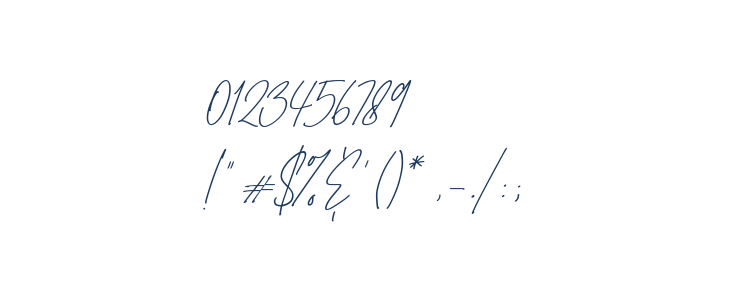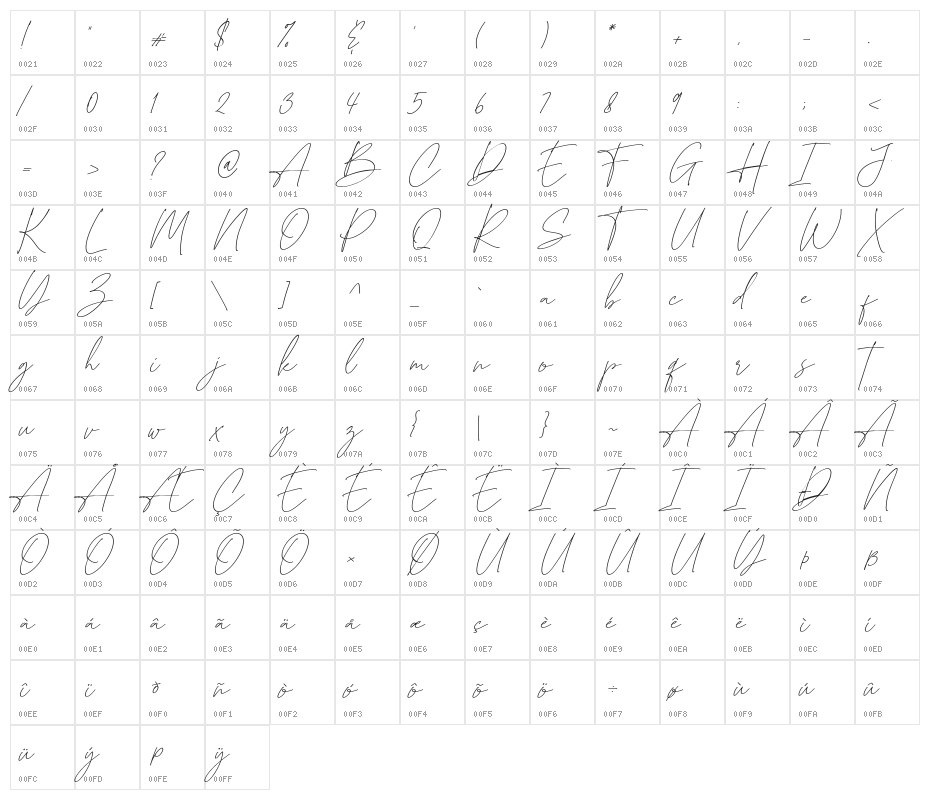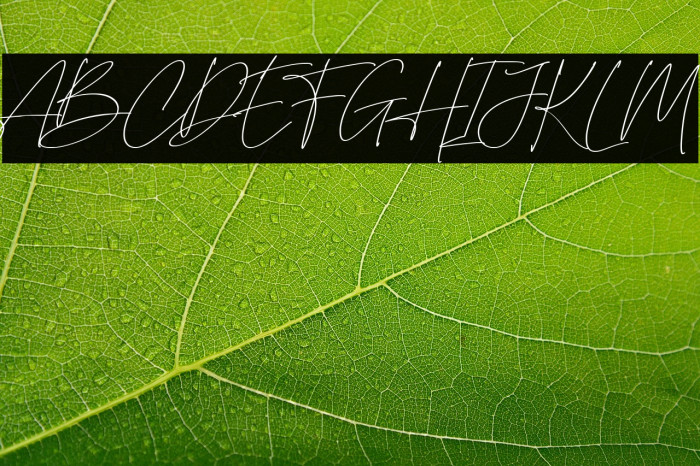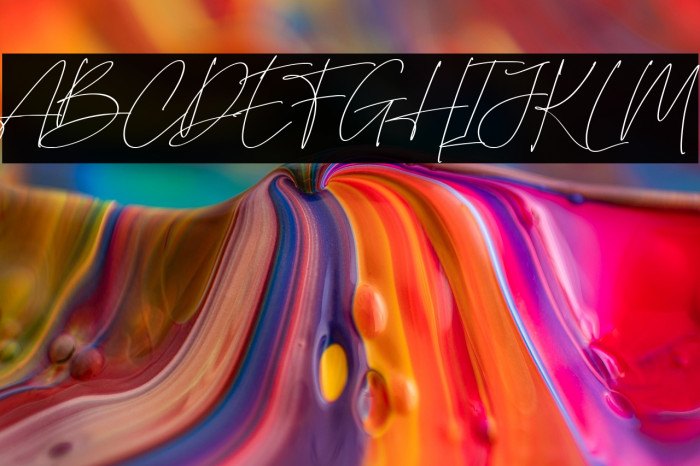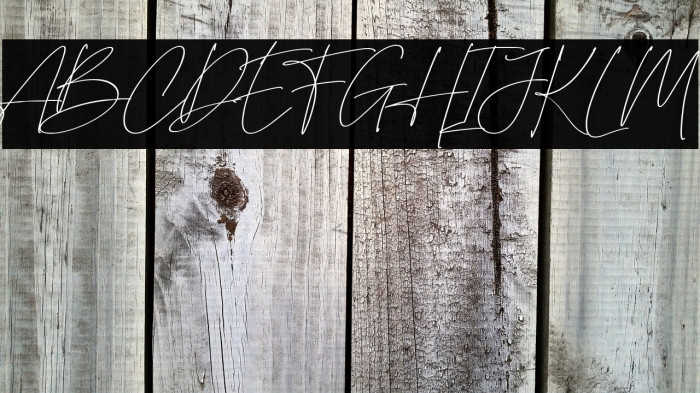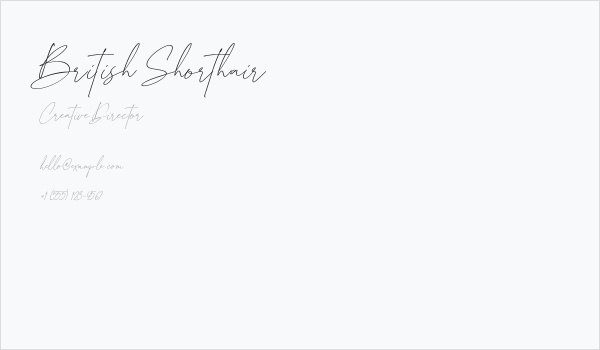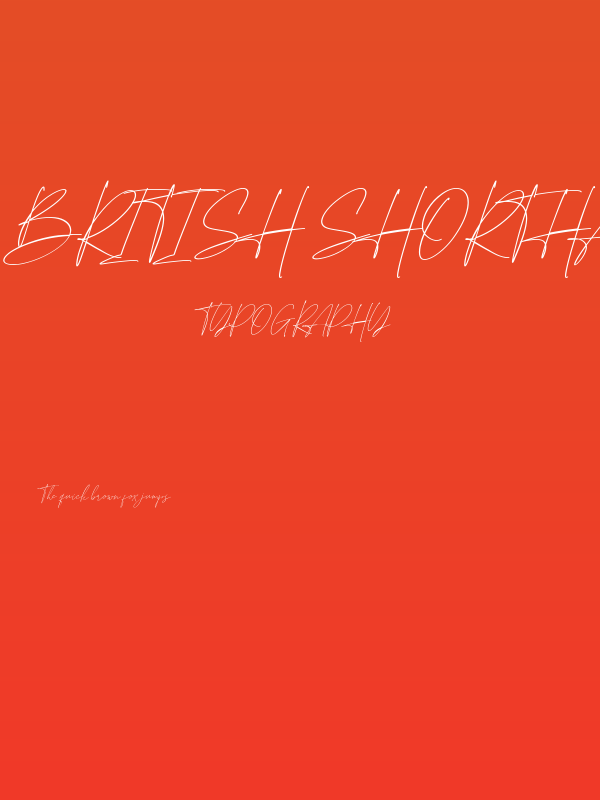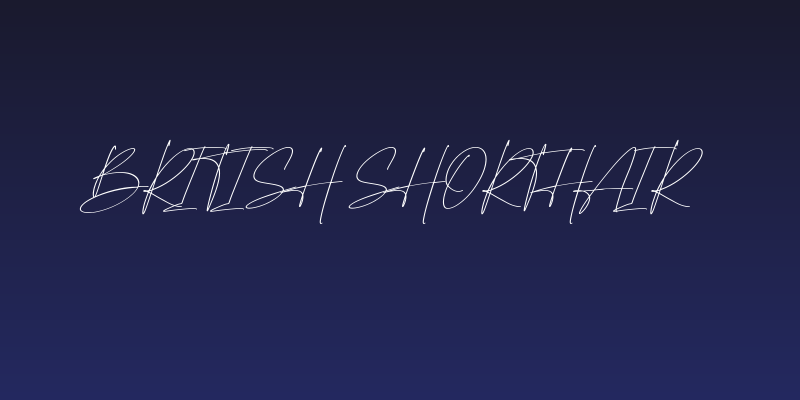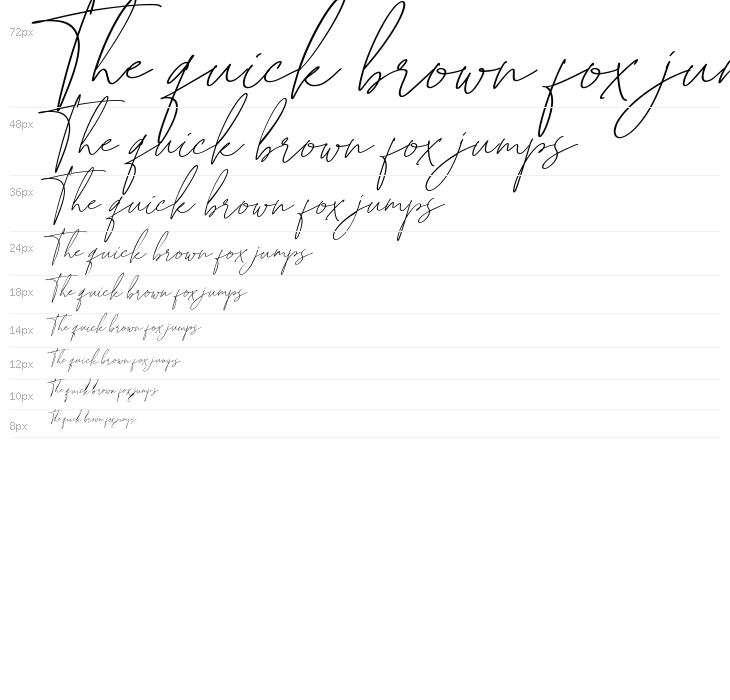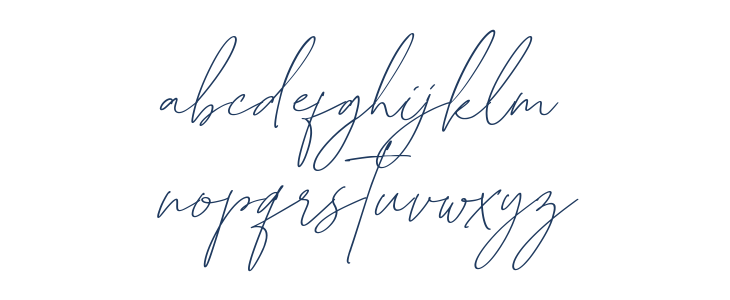
British Shorthair Font
British Shorthair Description
This font exudes a modern and elegant script style, characterized by its fluid and continuous strokes that mimic natural handwriting. The letters are connected in a seamless flow, giving it a personal and sophisticated touch. The uppercase letters maintain a consistent height, while the lowercase letters vary slightly, adding to the organic feel. The numerals and special characters are crafted with the same attention to detail, ensuring a cohesive appearance across all elements. The thin lines and delicate curves make it ideal for projects that require a touch of elegance and refinement.
| Proposed Projects | Ideal for wedding invitations, personal branding, elegant logos, and stylish social media graphics. |